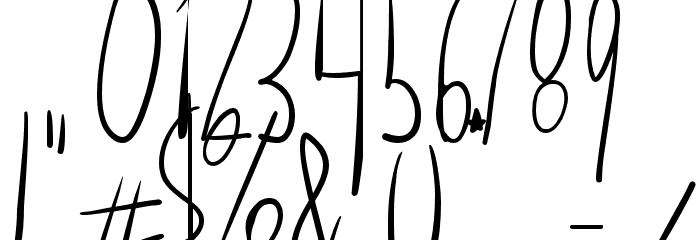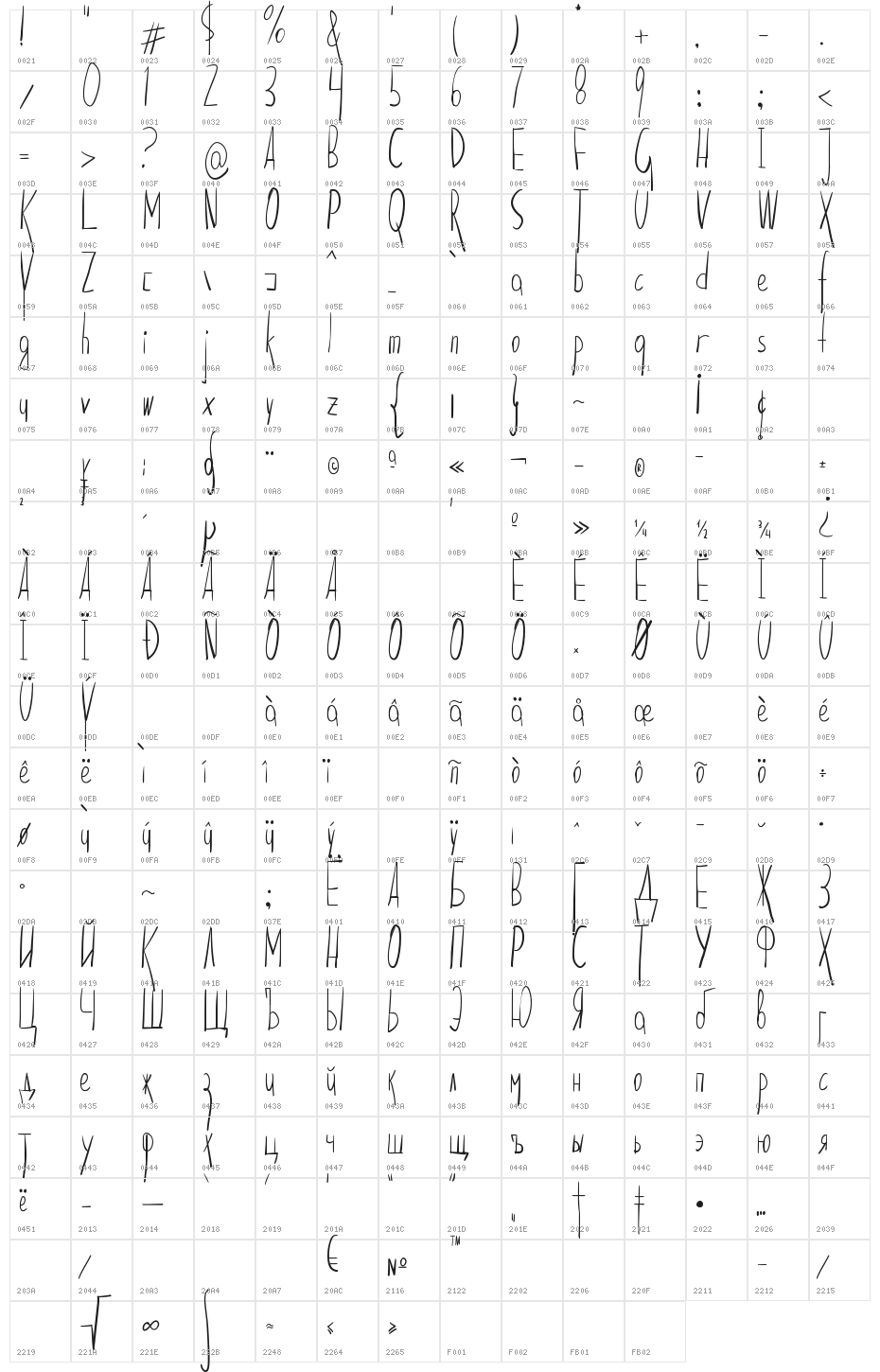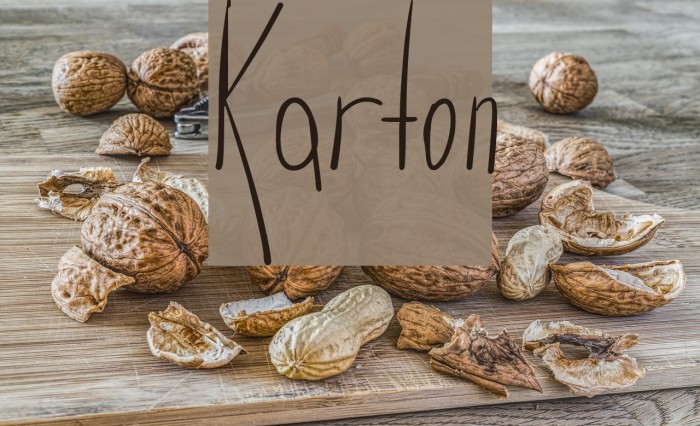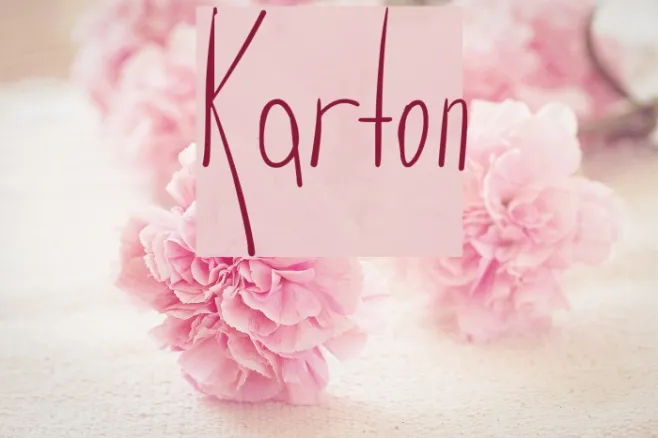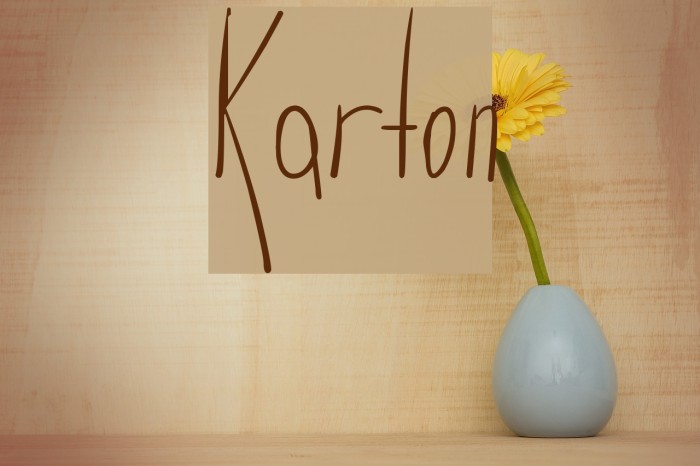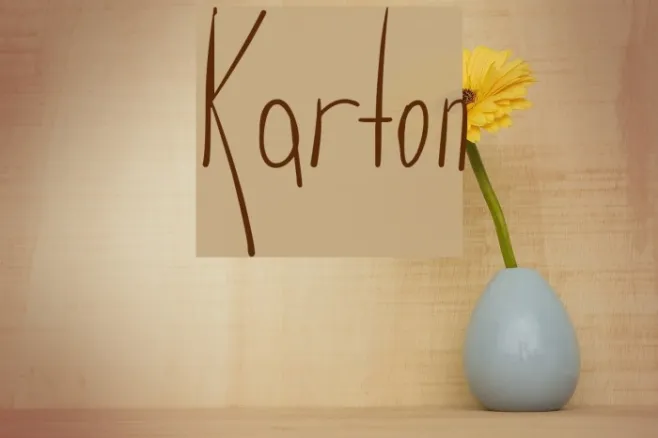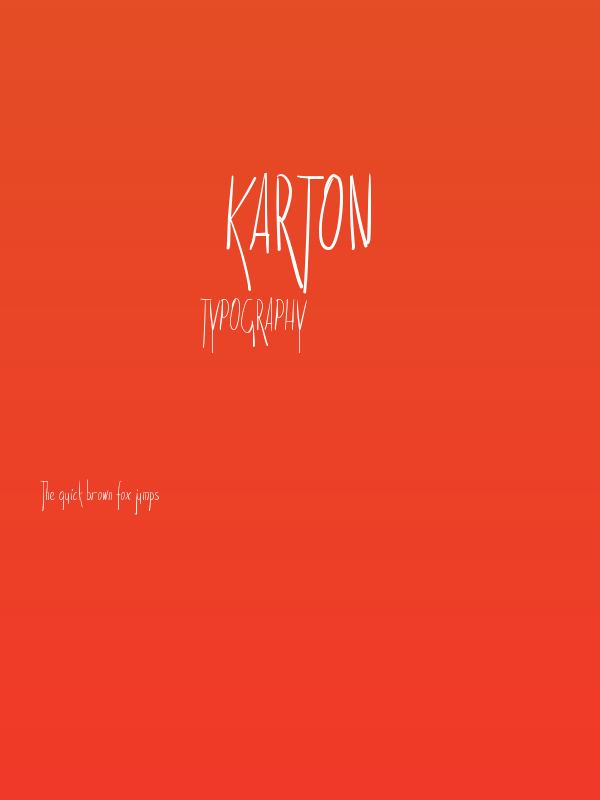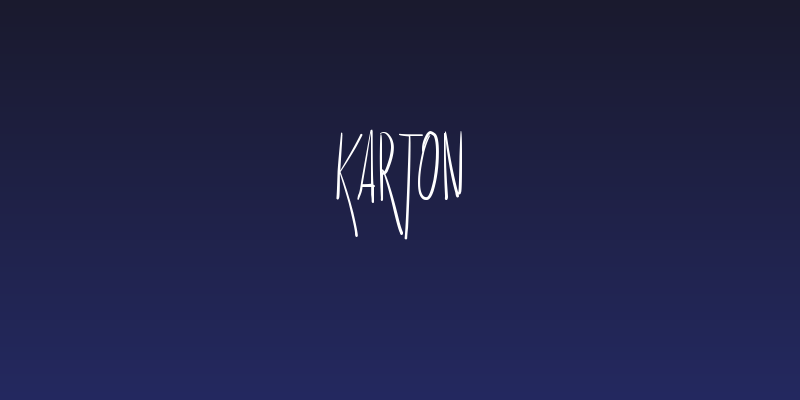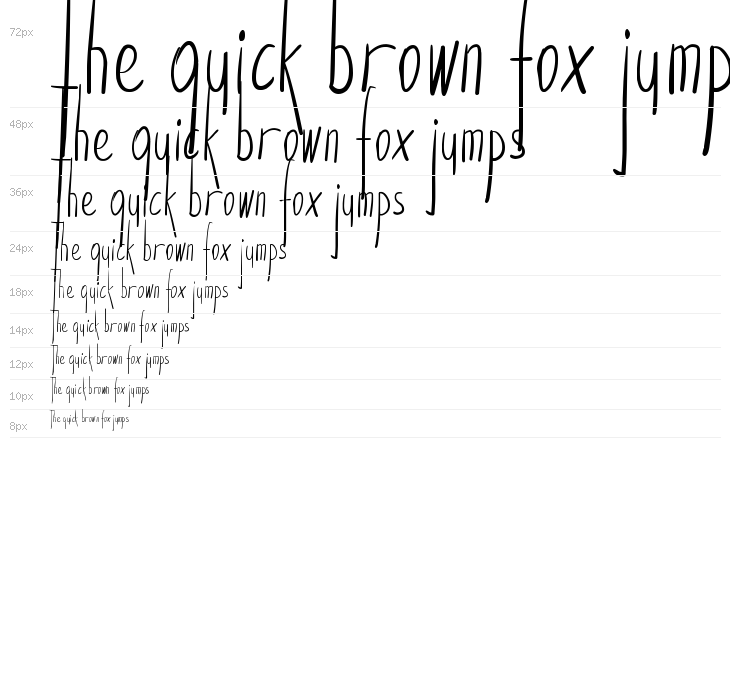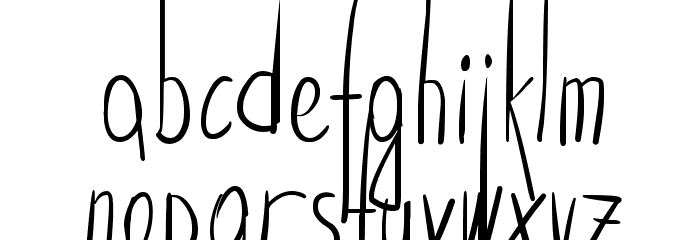
Karton Font
Karton Description
This font features a highly stylized and artistic design, characterized by its elongated and narrow letterforms. The strokes are uneven, giving it a hand-drawn, whimsical appearance. The uppercase letters are tall and slender, while the lowercase letters maintain a consistent height, creating a playful yet sophisticated look. The numbers and special characters follow the same aesthetic, with unique curves and angles that add to the font's charm. This font is ideal for creative projects that require a distinctive and eye-catching typeface.
Overall StyleArtistic
Use CaseLogos, Headlines, Creative projects
Proposed ProjectsIdeal for artistic projects, children's books, creative branding, and unique invitations.